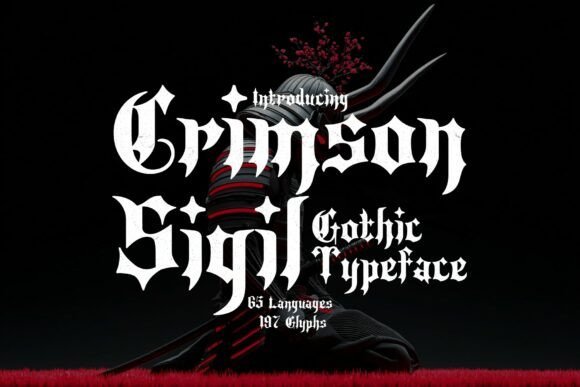
The Art of Unleashing Drama: Introducing Crimson Sigil Font
Imagine yourself in a dimly lit study, surrounded by dusty tomes and flickering candles. As you pour over an ancient manuscript, the words begin to leap off the page, transporting you to a world of mystery and wonder. This is the kind of creative moment that can spark an entire project – and that’s exactly what the Crimson Sigil Font is designed to evoke.
This gothic blackletter typeface is forged in the fires of ancient mysticism and medieval power, boasting razor-sharp serifs and dark, dramatic strokes that command attention. Whether you’re designing album covers, fantasy novels, or branding for dark artisan goods, the Crimson Sigil Font delivers an unmistakable visual impact that’s both beautiful and bold.
Crimson Sigil Font Key Features
- Font Family: Crimson Sigil Font is a unique, hand-drawn font family designed to evoke a sense of mysticism and elegance.
- Unique Characteristics: Crimson Sigil Font features intricate, hand-drawn designs with subtle texture and shading effects, giving it a distinctive and eye-catching appearance.
- Font Pairing: Crimson Sigil Font is designed to pair well with a variety of font styles, from modern sans-serifs to classic serif fonts, making it a versatile choice for designers and typographers.
Crimson Sigil Font Review
At first glance, Crimson Sigil Font✨ has a certain je ne sais quoi that draws you in. The intricate, hand-drawn design elements evoke a sense of luxury and mysticism, making it perfect for projects that need a touch of the unknown.
- ✨ Unique design elements that add a touch of mysticism to any project.
- ⚠️ Some characters may not display correctly in certain fonts or sizes.
- ⚠️ The font may not be as readable at very small sizes or in certain color schemes.
Overall, I would give Crimson Sigil Font 4 out of 5 stars. While it has some limitations, its unique design elements and high level of customization make it a great choice for projects that need a touch of the unknown. Just be sure to test it thoroughly before using it in a final product.
For the best results, use the Crimson Sigil Font in bold or italic styles to add emphasis.
Combine the Crimson Sigil Font with other fonts to create a unique and eye-catching design.
The Crimson Sigil Font is ideal for:
- Book covers and title pages.